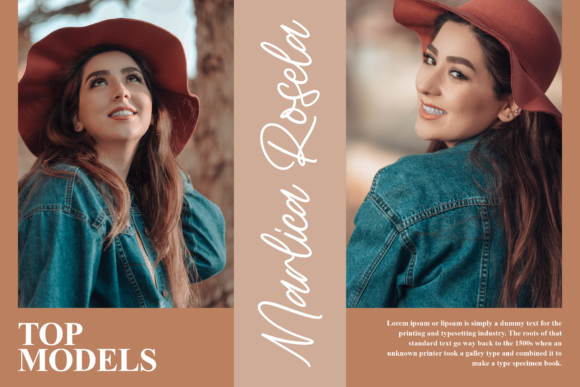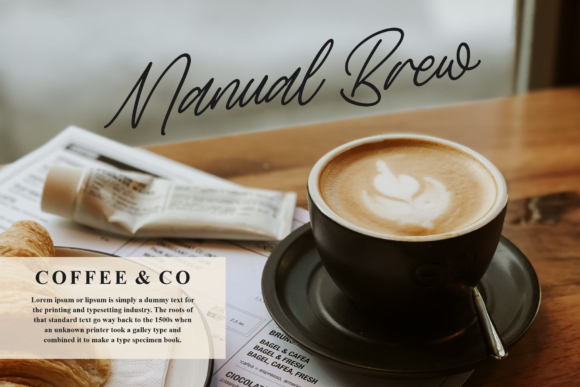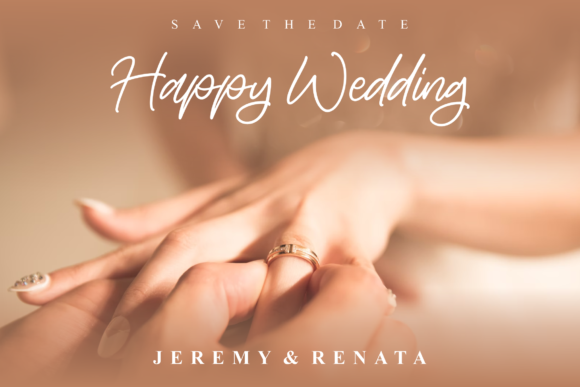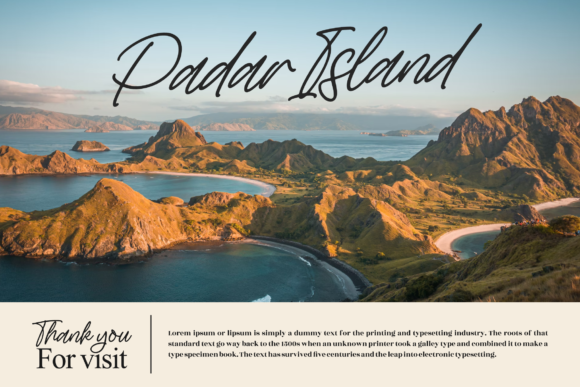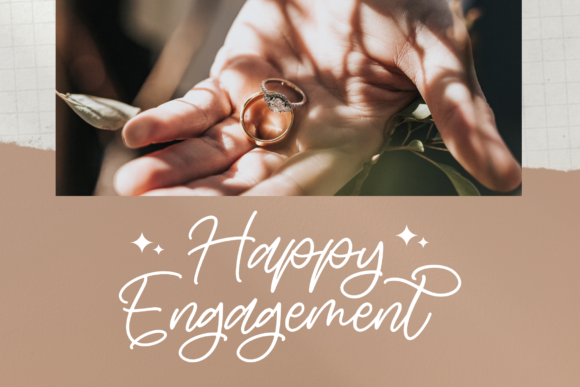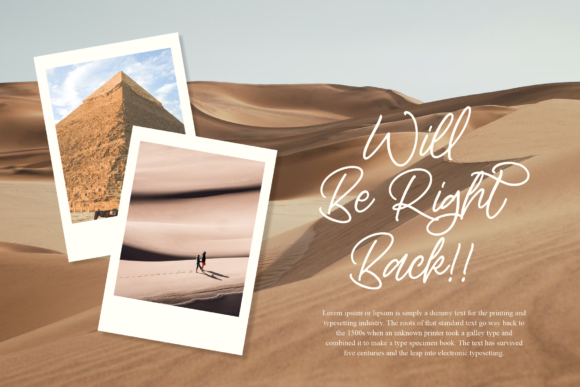
Introduction to Rotterdams Font
Rotterdams is a luxurious and dainty script font.
It is perfect for any branding project such as logos, t-shirt printing, creative products, and more It will look extraordinary in a variety of contexts.
Key Features of Rotterdams Font